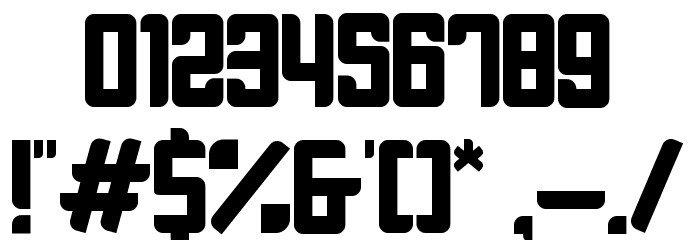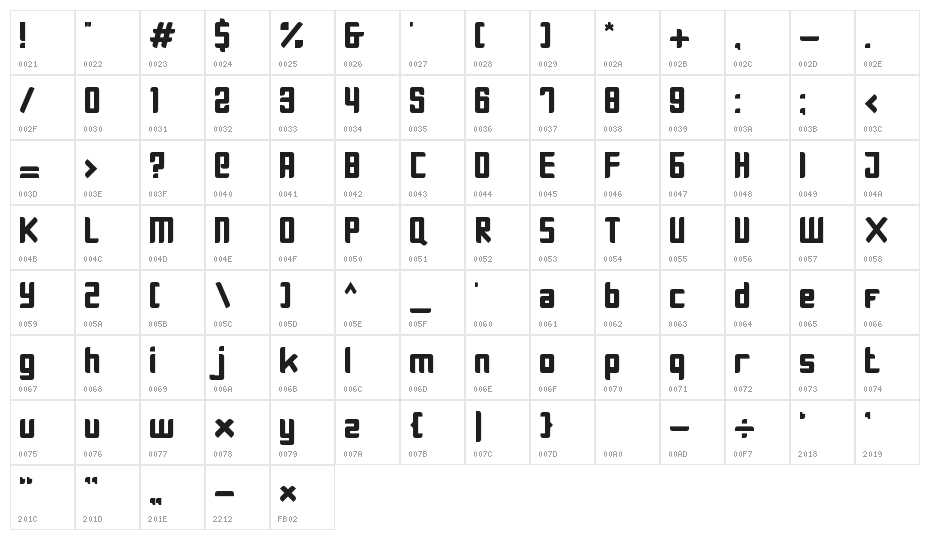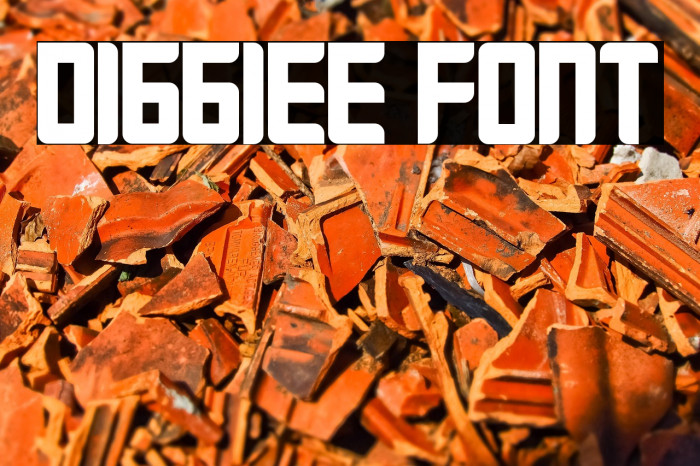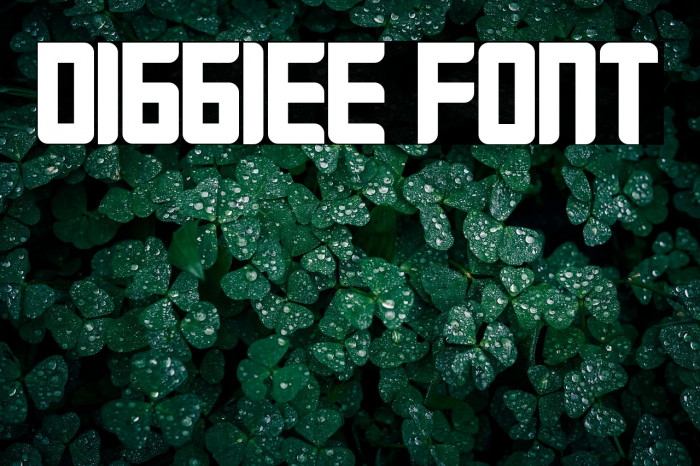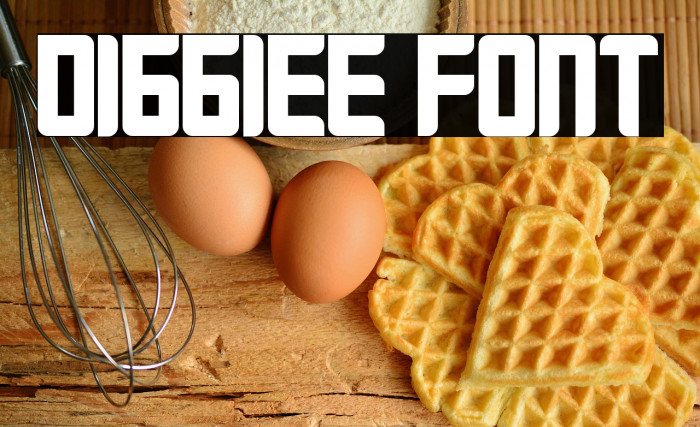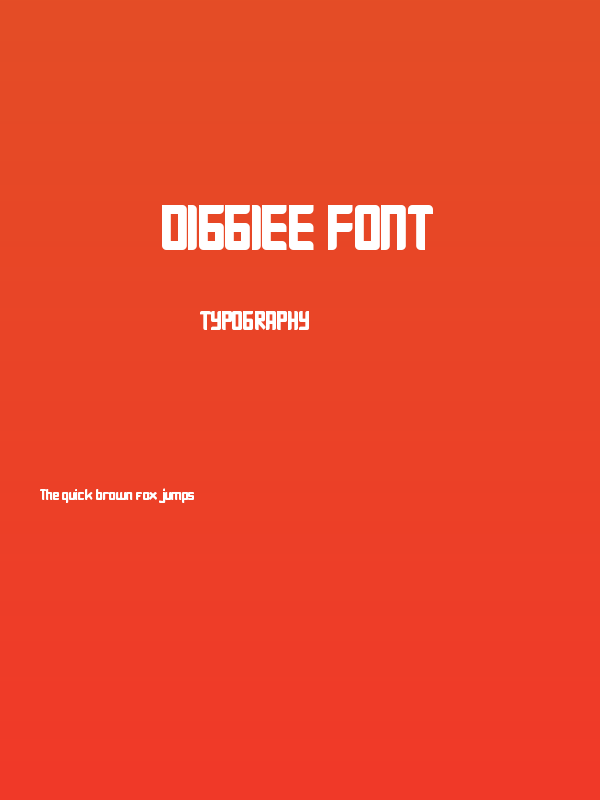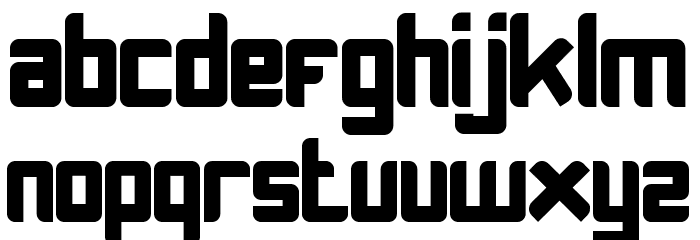
DIGGIEE FONT Font
DIGGIEE FONT Description
This font features a bold, geometric design with a modern and futuristic aesthetic. The characters are constructed with thick, uniform strokes that create a strong visual impact. The angular shapes and sharp edges give it a distinctive, tech-inspired look. The uppercase and lowercase letters maintain a consistent style, while the numerals and special characters complement the overall design. The font's structure is clean and precise, making it suitable for digital and print media where a contemporary and assertive presence is desired.
| Proposed Projects | Ideal for technology branding, video game titles, digital interfaces, and futuristic posters. |